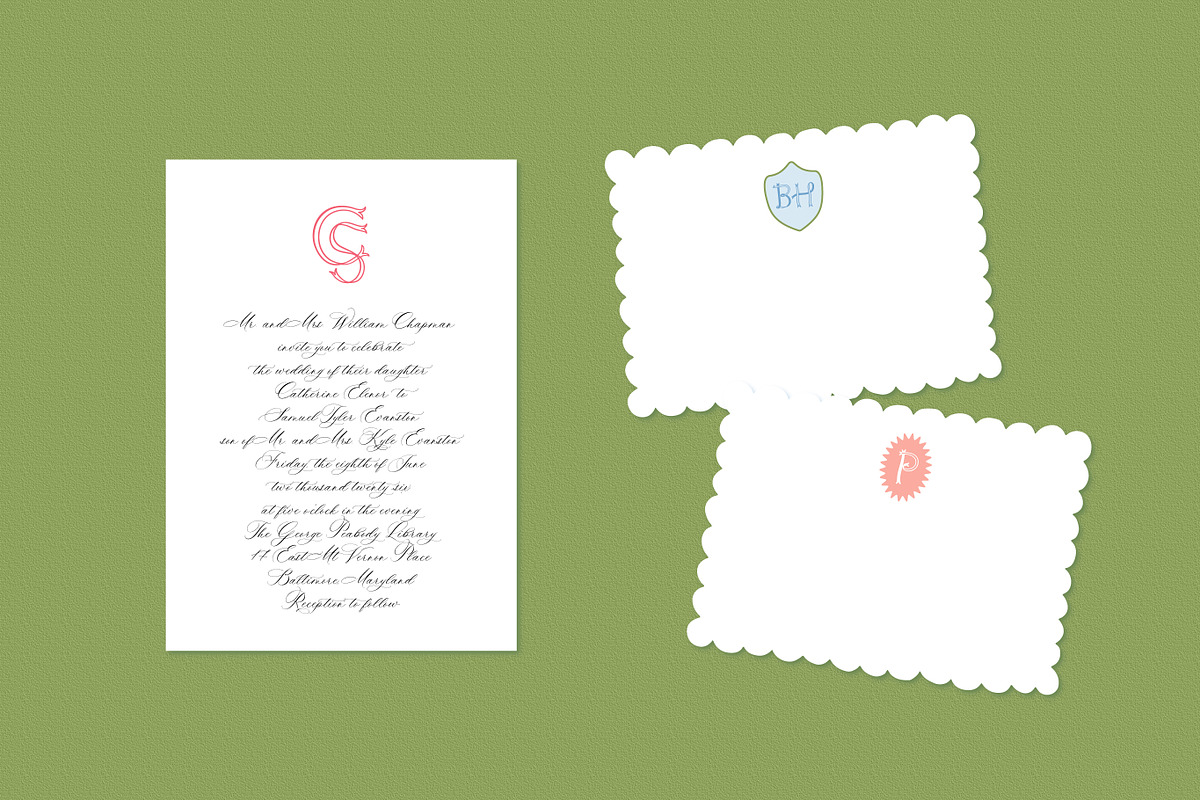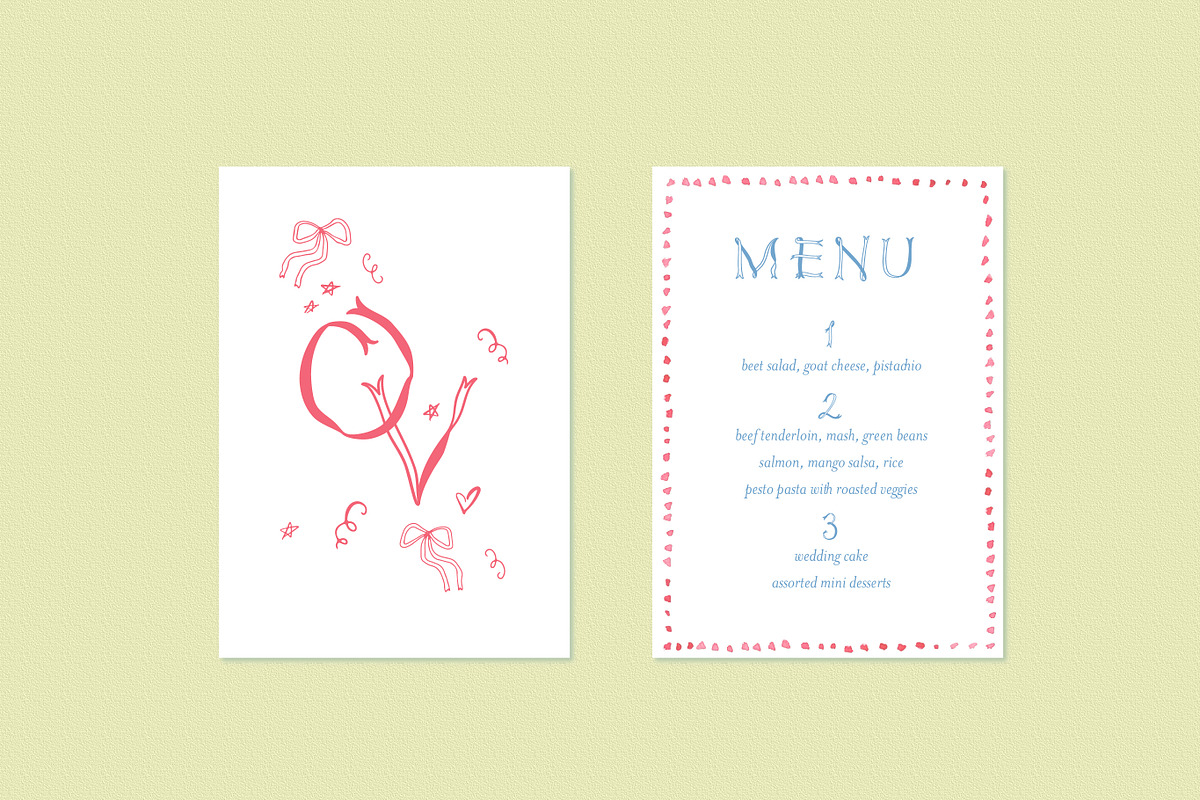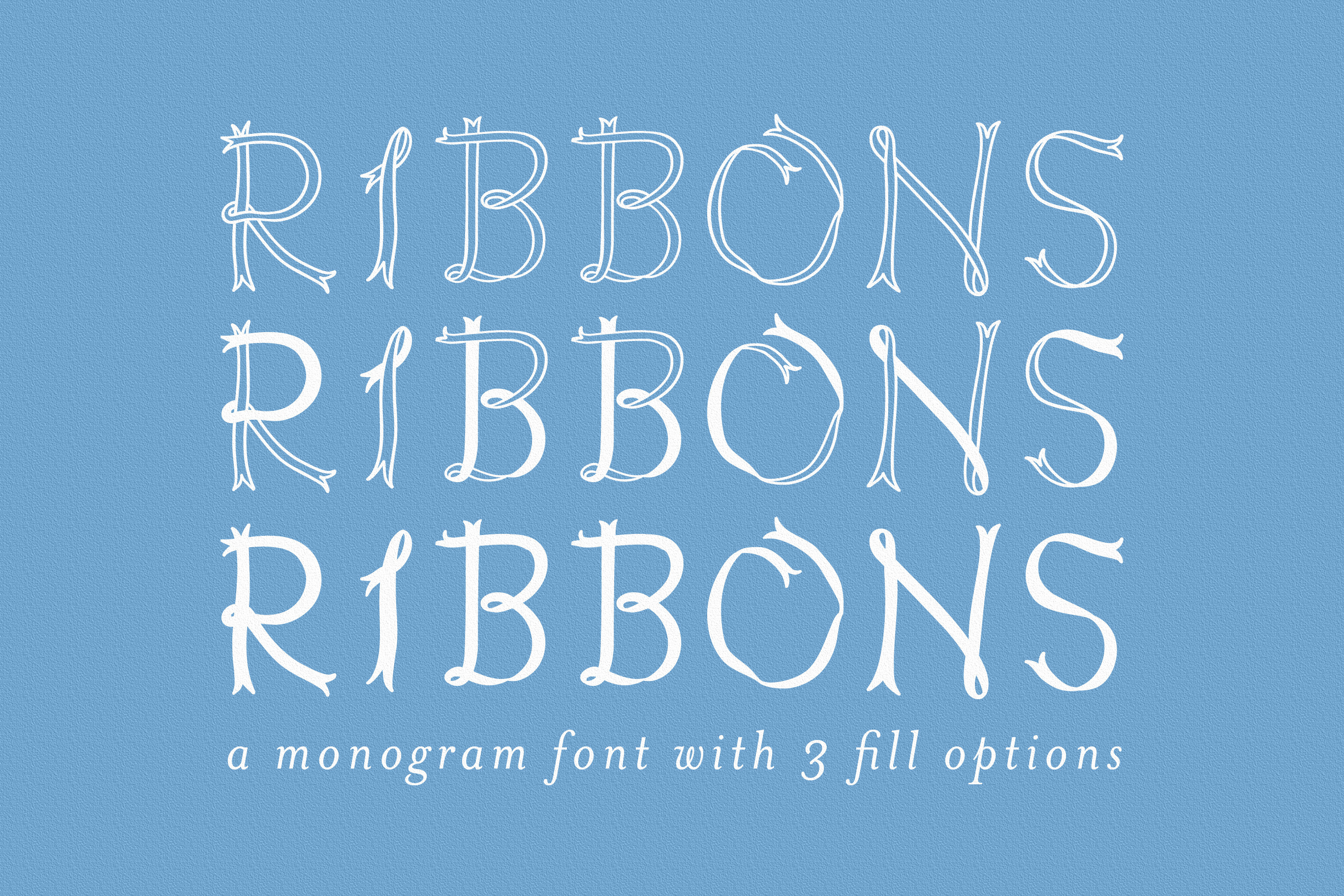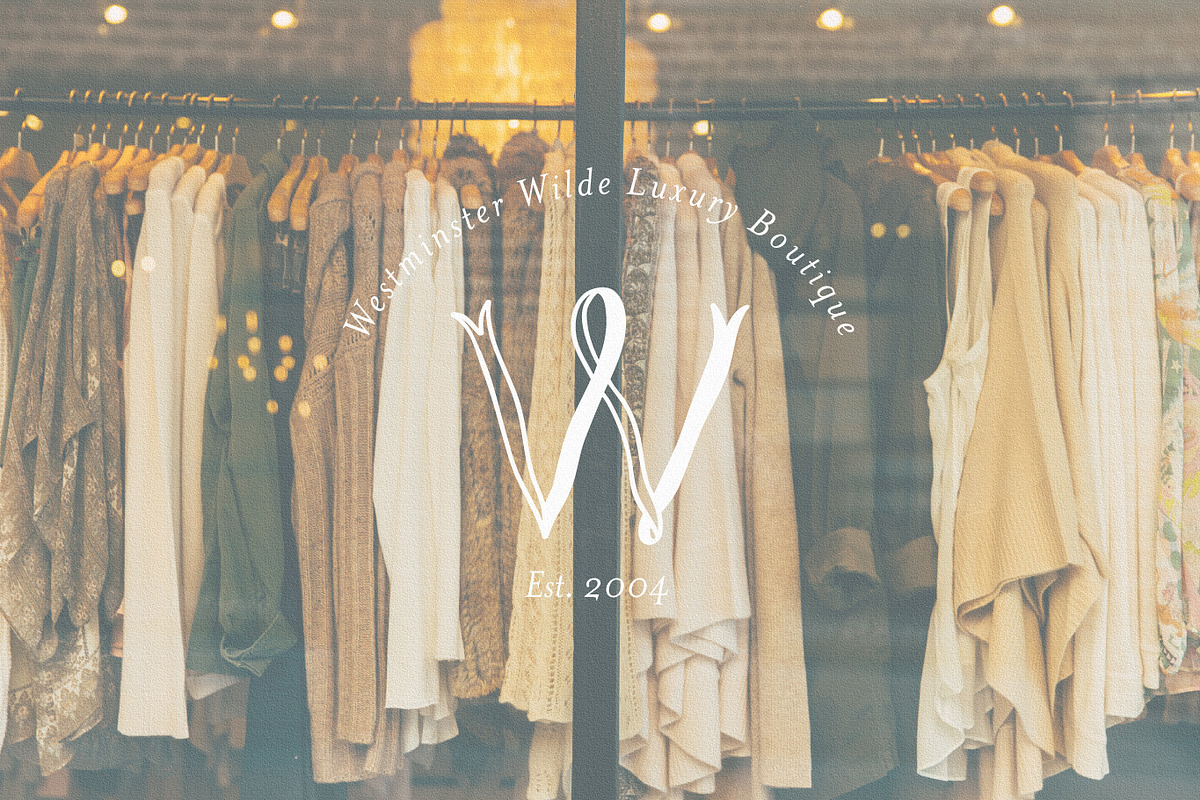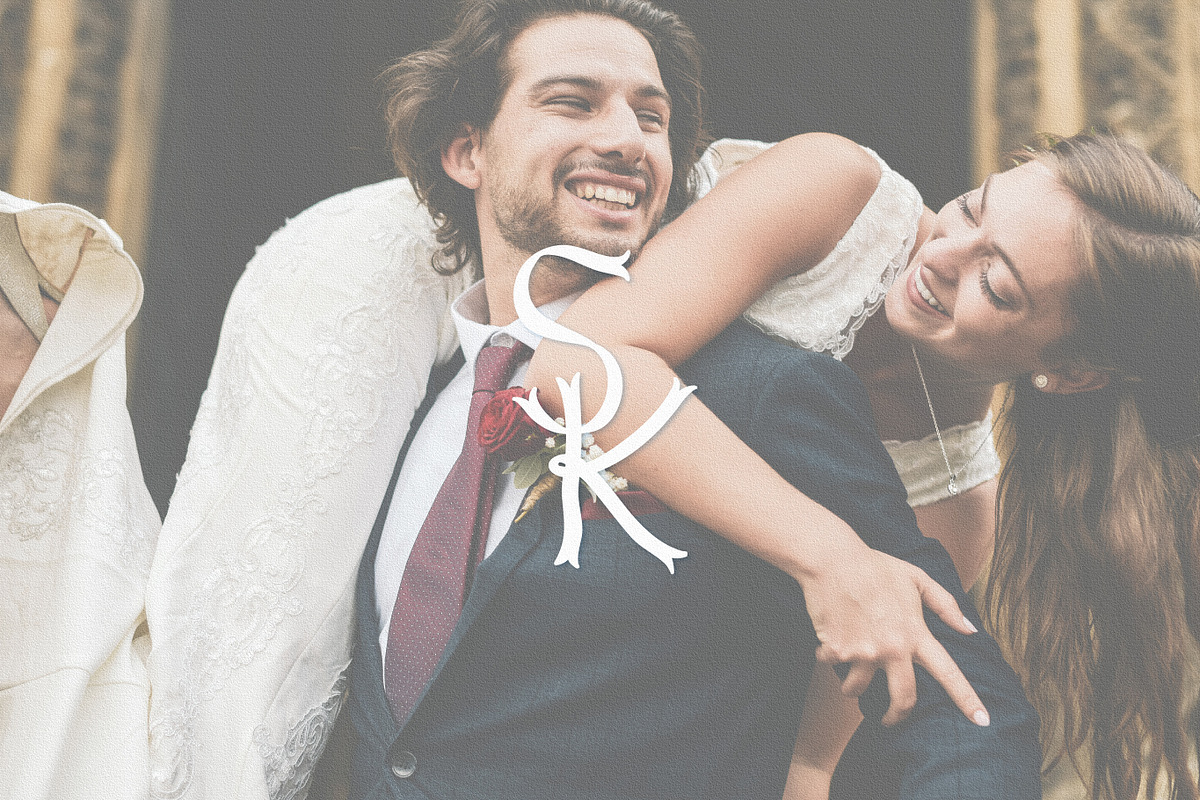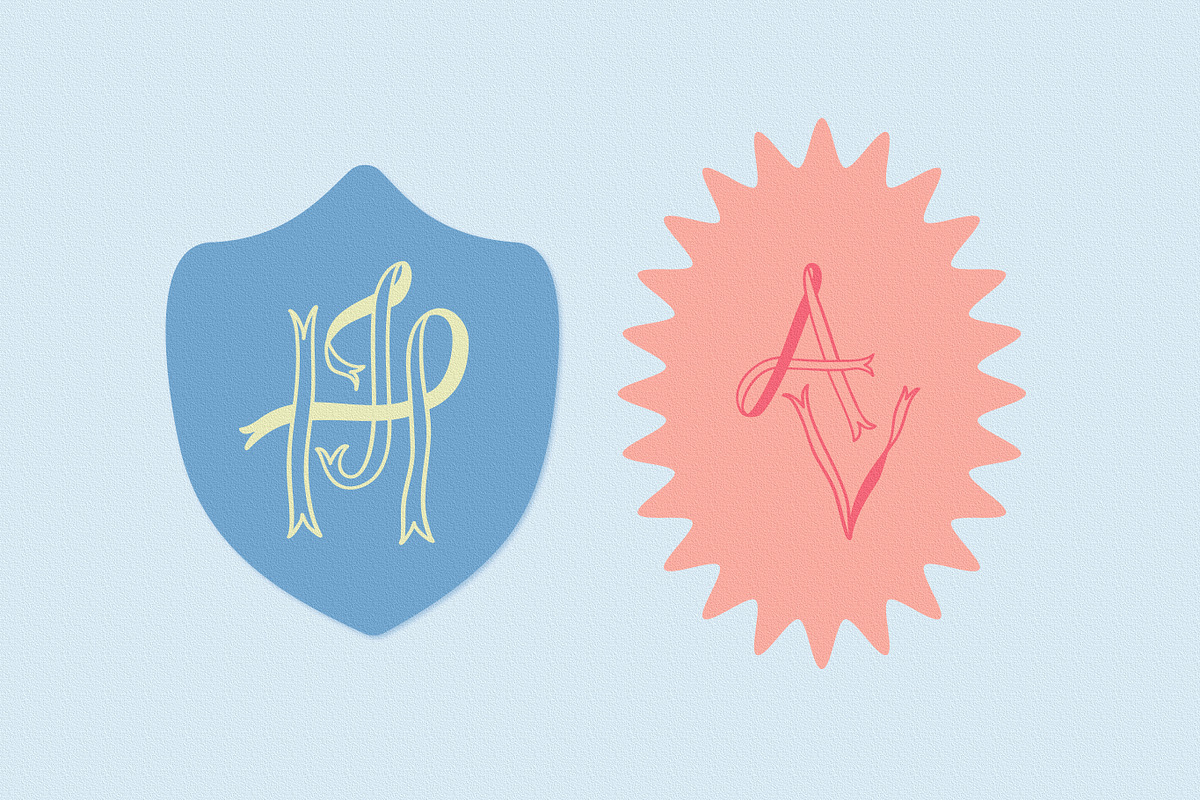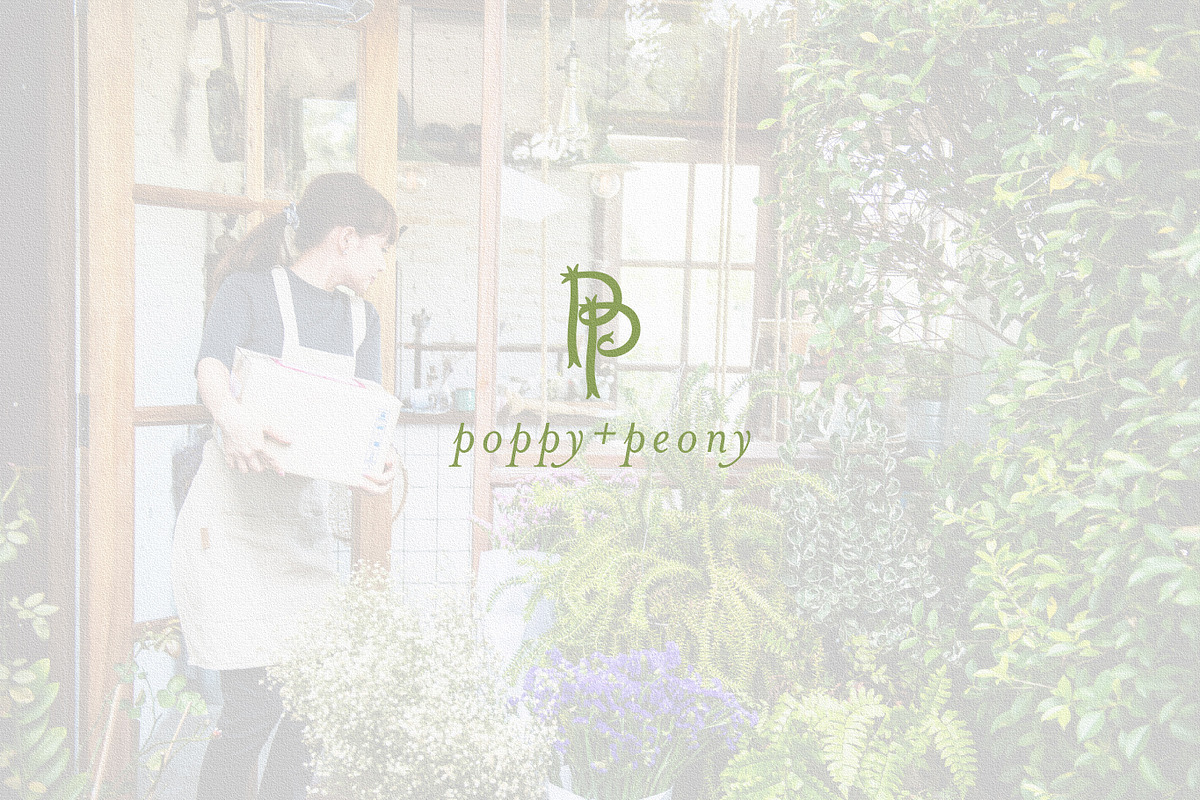
Ribbons Monogram Font
Ribbons is a Monogram font from Design by Laney with 3 typefaces included. Take advantage of the whimsical ribbon trend in your designs with these ribbon-inspired letterforms! Designed with monograms in mind, this set with 3 different fill options is perfect for branding, stationery, packaging, social media templates, magazine layouts, wedding invitations, party invites, and more!
Ribbons contains a full set of 26 letters in 3 fill options: -"Front and Back" (lowercase letters) -Outlines (uppercase letters) -Filled in Letters (stylistic set 2)